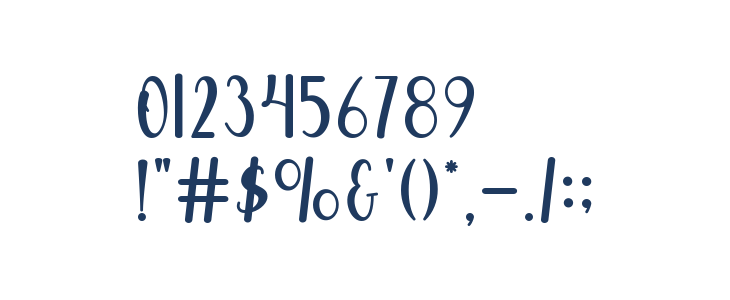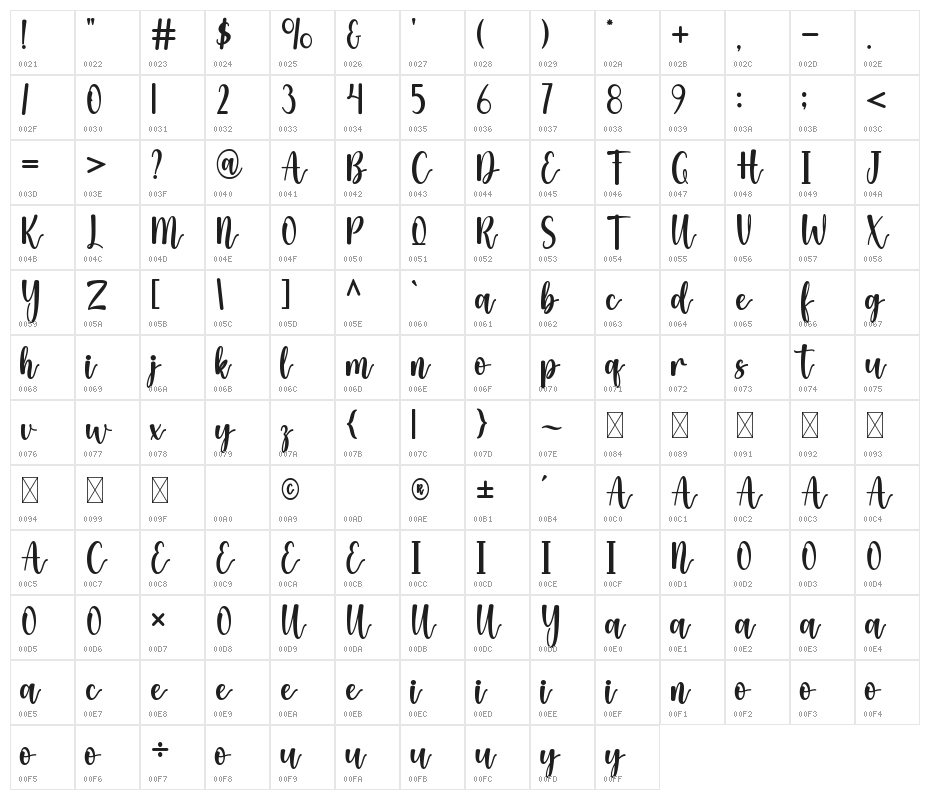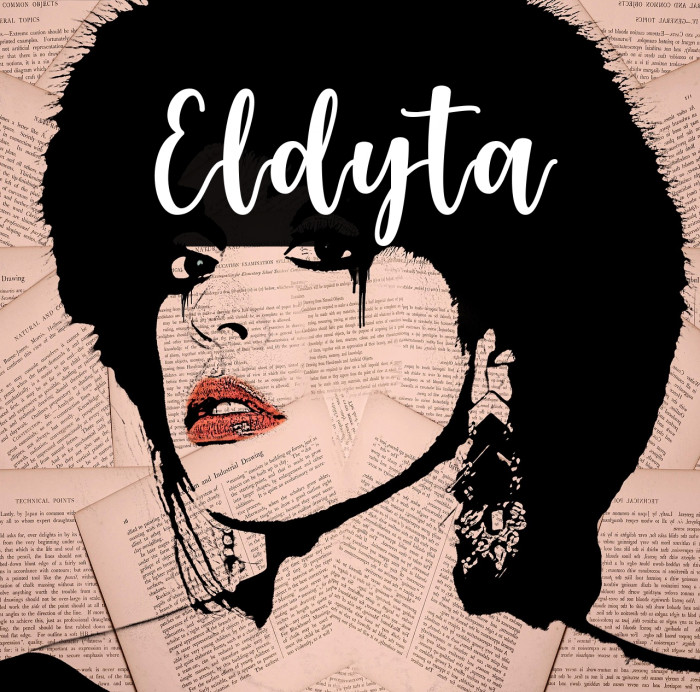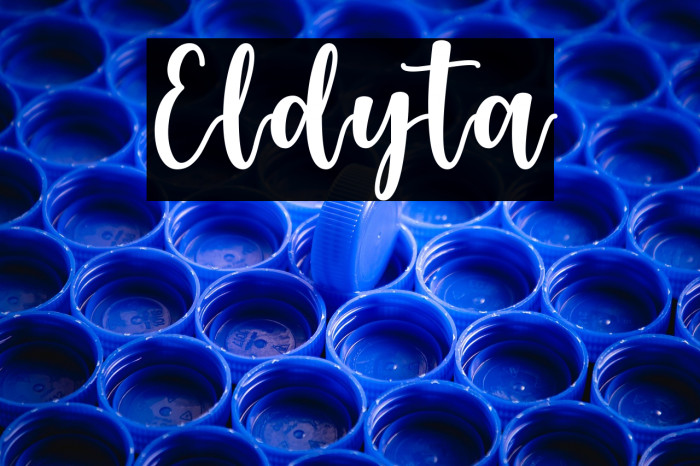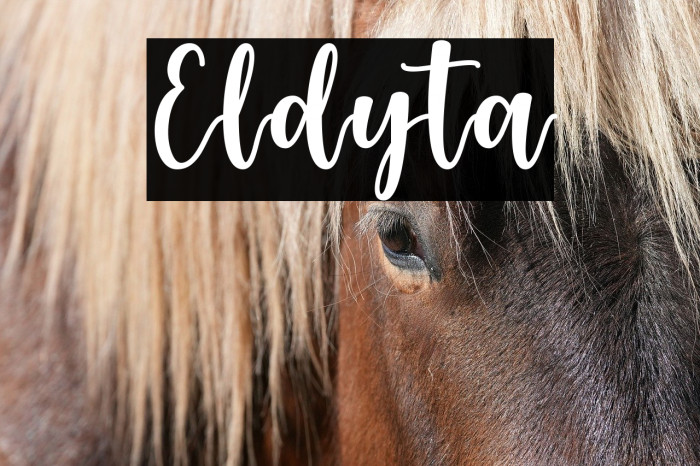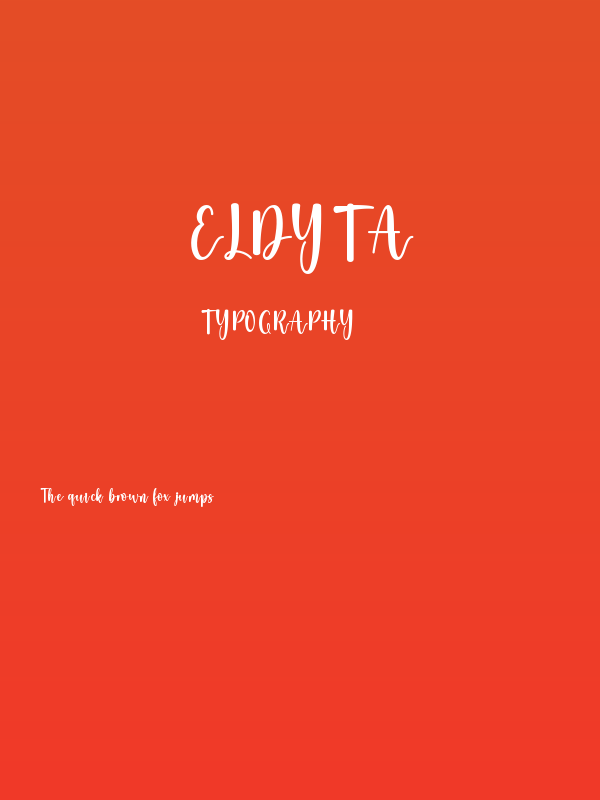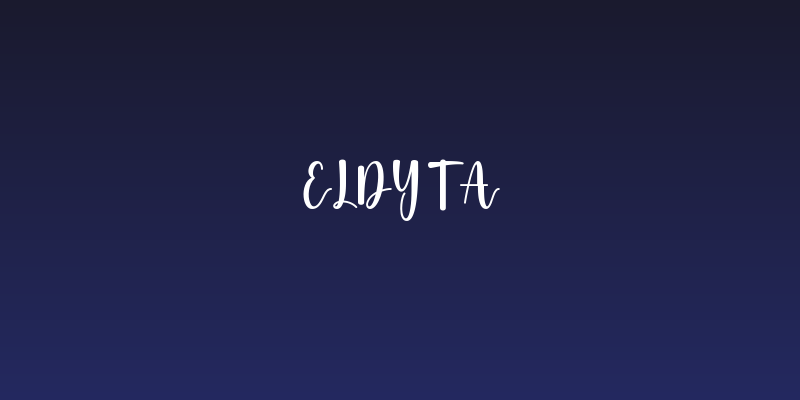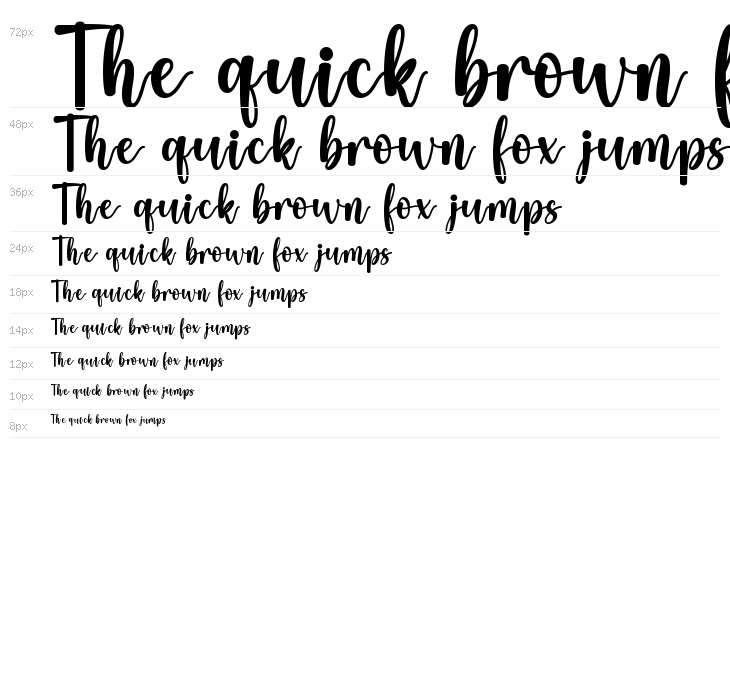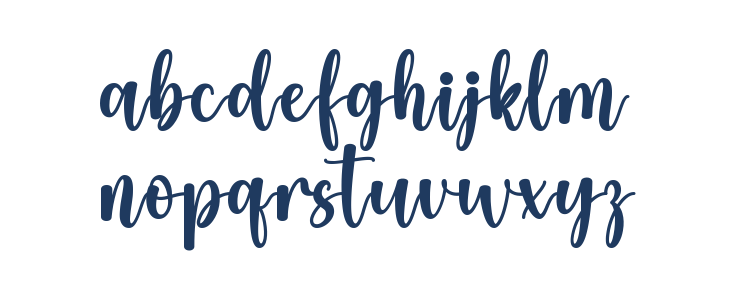
Eldyta Font
Eldyta Description
This font features a playful and elegant script style with a handwritten feel. The letters are characterized by smooth, flowing lines and a consistent stroke width that gives it a cohesive look. The uppercase letters have a distinctive flair with loops and swirls, while the lowercase letters maintain a more casual and approachable appearance. The numbers and special characters are designed to match the overall style, ensuring uniformity across all elements. This font is perfect for adding a personal touch to any design project.